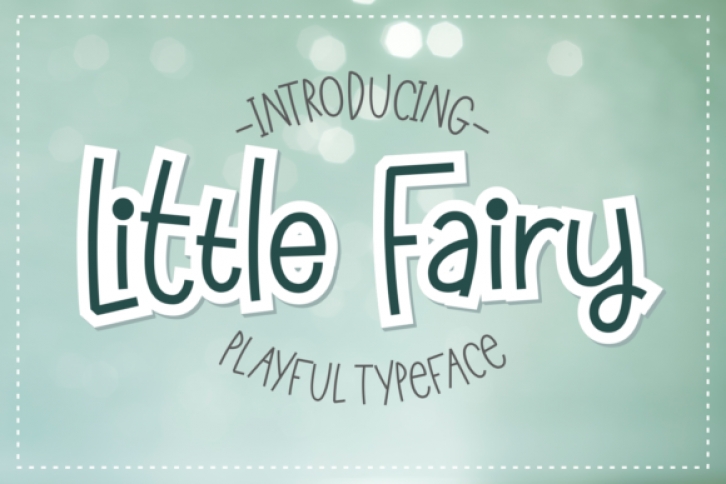
Little Fairy is a sweet and simple handwritten font. It can be used on various design ideas, such as crafting, digital designing, presentations or greeting cards making.